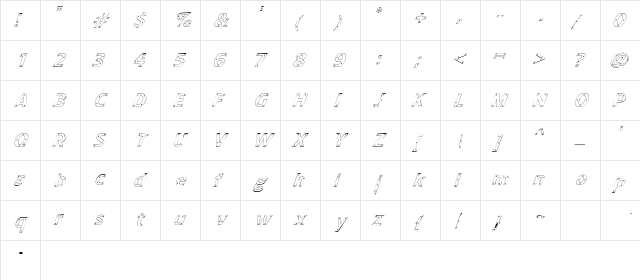
ScrewedFontSlanted Regular
Design Context for ScrewedFontSlanted Typeface
ScrewedFontSlanted offers clean, dependable letterforms without strong stylistic allegiance, making it a practical choice for designers who need flexibility. The dynamic lean of this cut emphasises speed and emphasis in any layout.
Pro Tip: Use ScrewedFontSlanted for emphasis, pull quotes, and subheadings where its slanted energy can add rhythm to the layout.